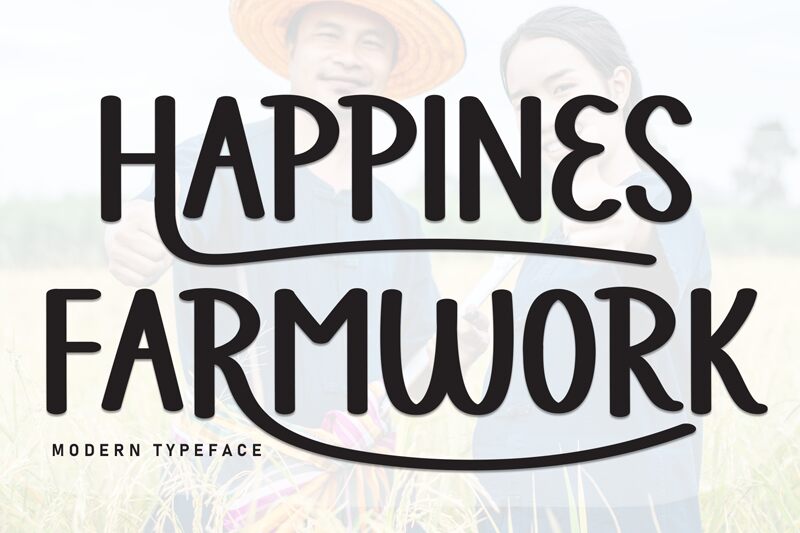
Happines Farmwork
Happiness Farmwork font by Andi Moz combines a free spirit with a playful, majestic look. Each character bears meticulous brush-drawn details, standing out while seamlessly complementing the rest. This free brush font offers great readability and integrates an artistic flair to instantly gain attention as well.
Plenty of use opportunities are waiting for any designer who decides to work with Happiness Farmwork. Make marvelous packaging designs, branding ideas, and logos or include the typeface in books and magazines aimed at children as this font will go amazingly well with those. Websites, posters, flyers, invitations can take advantage of its beauty levels as well.